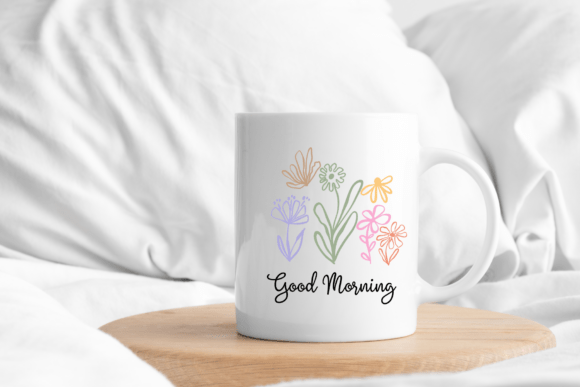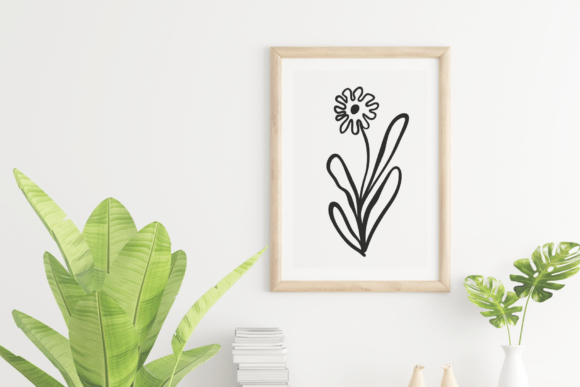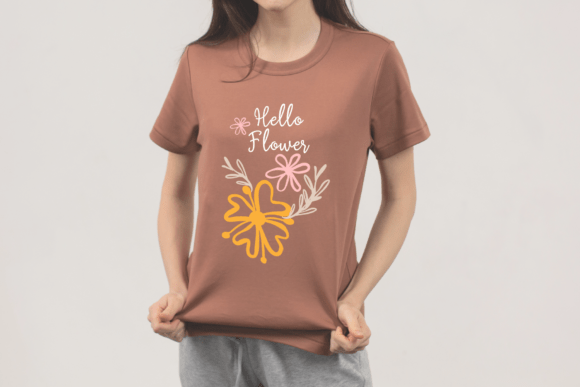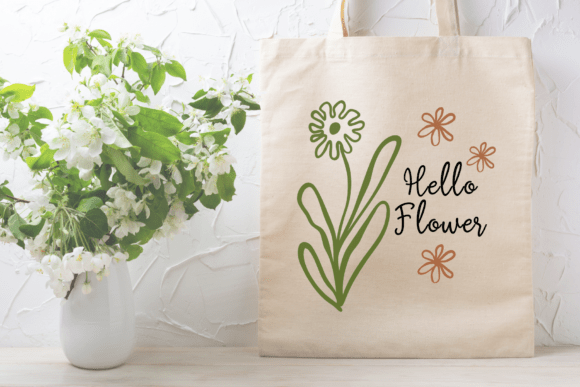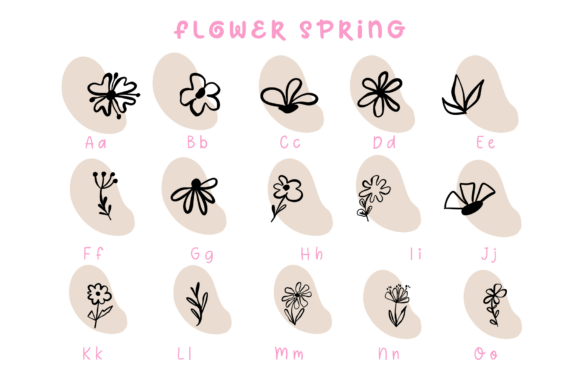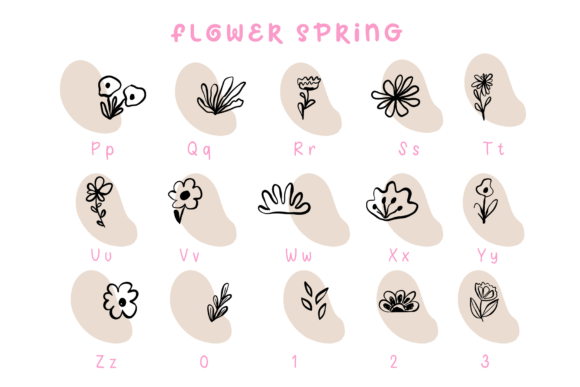
The Blooming Charm of Flower Spring Font: A Designer’s Delight
I’ll never forget the time I was working on a children’s book project, and my client asked for a font that would make their story feel like a whimsical garden party. I scoured the internet, tried out dozens of fonts, but nothing seemed quite right – until I stumbled upon Flower Spring Font. It was love at first sight! The adorable flower illustrations, the playful vibe, and the versatility of this dingbat font won me over. In this article, I’ll share my experience with Flower Spring Font, its features, and how to make the most of it in your designs.
- 🌼 Adorable flower illustrations that add a touch of cuteness to any design
- ✅ Easy to use and navigate, even for beginners
- 🎨 Highly versatile and suitable for a wide range of projects, from children’s books to wedding invitations
- 📚 Extensive glyphs and OpenType features for creative freedom
A Few Quirks to Keep in Mind 🤔
- ⚠️ Limited character set, which might not be ideal for text-heavy designs
- ⚠️ Some glyphs might require manual adjustments for optimal spacing
The Story Behind Flower Spring Font: A Designer’s Inspiration
Flower Spring Font was born from a designer’s passion for gardening and whimsical illustrations. The creator, a talented artist and typographer, wanted to capture the essence of springtime in a font that would bring joy and playfulness to designs. With a background in children’s book illustration, the designer aimed to create a font that would inspire creativity and imagination in designers and readers alike.
Q: What type of projects is Flower Spring Font best suited for?
A: Flower Spring Font is perfect for children’s books, greeting cards, wedding invitations, DIY projects, crafts, decorations, logos, and social media posts.